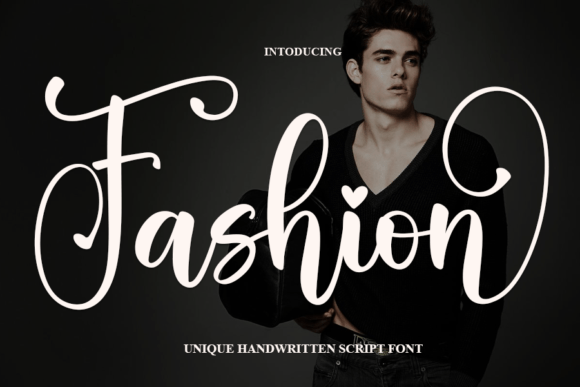
Journey through the realm of timeless elegance with Fashion Font, a captivating script font that breathes life into your creative endeavors. Its meticulously crafted curves and impeccable execution evoke a sense of nostalgia, transporting you to an era of handwritten masterpieces.
Unleash your artistic flair with Fashion Font, the ultimate choice for vintage-inspired designs. Its enchanting characters, reminiscent of classic calligraphy, lend a touch of sophistication to any project. Whether you're crafting heartfelt invitations, designing captivating posters, or adding a touch of charm to your branding, Fashion Font is your trusty companion.
Immerse yourself in the beauty of Fashion Font's balanced strokes and varied letterforms. Its carefully designed lines create a visual symphony that captivates the eye, ensuring your designs stand out from the ordinary. From delicate wedding invitations to eye-catching social media posts, Fashion Font effortlessly elevates your creations, transforming them into works of art.
With Fashion Font at your fingertips, you unlock a world of creative possibilities. Its versatility knows no bounds, seamlessly adapting to a myriad of design styles. Whether you're a seasoned designer seeking a touch of vintage charm or a budding artist exploring new horizons, Fashion Font empowers you to express your unique vision with confidence.
Soar beyond the mundane and embrace the allure of Fashion Font. Let its timeless beauty infuse your designs with a touch of magic. As you embark on your creative journey, Fashion Font will accompany you as a steadfast partner, guiding you towards design excellence.
Seize this opportunity to elevate your design repertoire with Fashion Font. Discover the endless possibilities that await you as you unleash your creativity and embark on a journey of visual enchantment. Let Fashion Font be your muse, inspiring you to create designs that resonate with beauty, elegance, and timeless appeal.